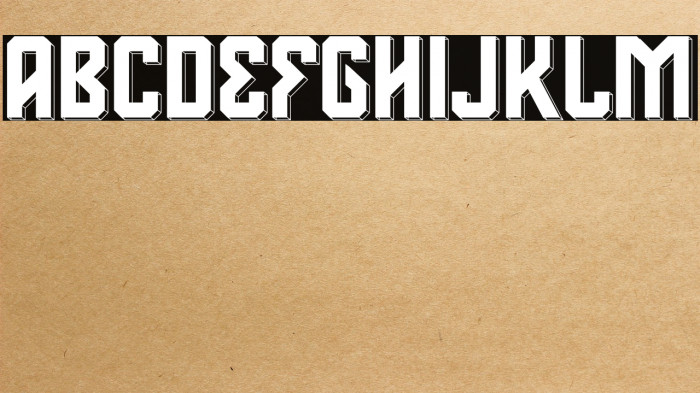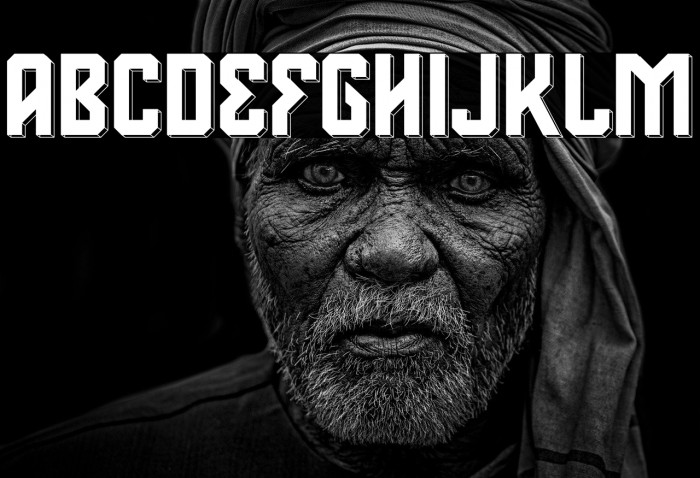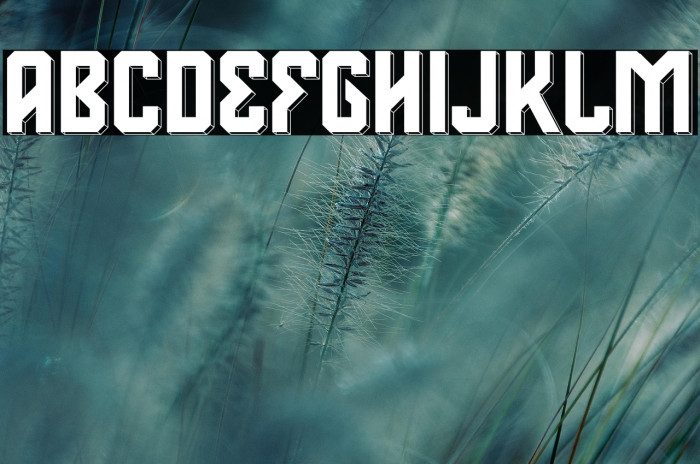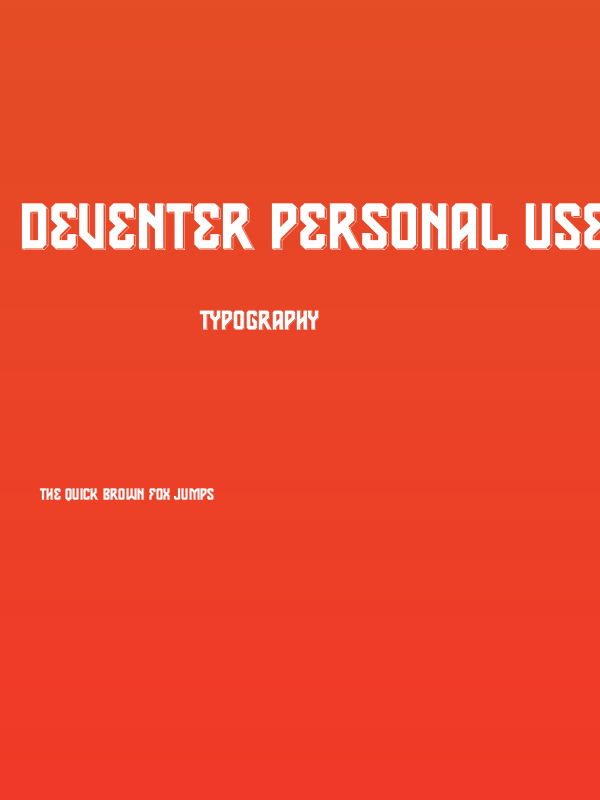
Deventer PERSONAL USE 7 Font
Deventer PERSONAL USE 7 Description
This font features a bold, geometric design with a three-dimensional effect that gives it a striking and impactful appearance. The characters are constructed with sharp angles and clean lines, creating a sense of strength and modernity. The shadow effect adds depth, making the letters stand out prominently. The uppercase and lowercase letters maintain a consistent style, while the numerals and special characters complement the overall aesthetic. This font is ideal for projects that require a bold statement and a contemporary look.
| Proposed Projects | Ideal for posters, logos, headlines, and branding materials that require a strong visual impact. |